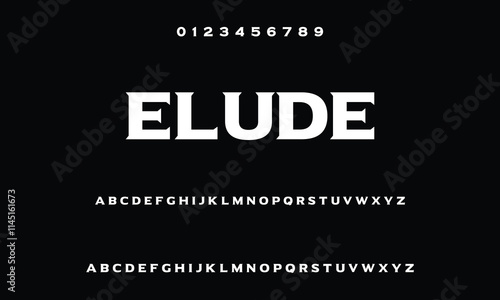
Classic serif font alphabet letters fancy gentle typographic design. Elegant anthique typography. Retro slick serif letter set for wedding card, restaurant menu, headline, lettering. Vector typeset